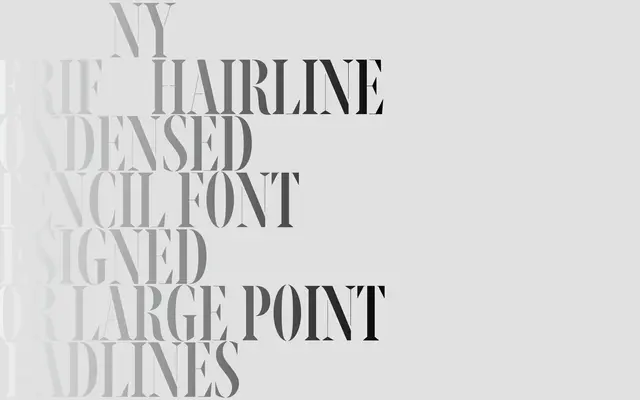
Ny. Serif Condensed Stencil
A condensed stencil serif drawn from Stephenson Blake's Mazarin and the sharp Gothic contrast of the New York Times Magazine logotype.
Part of A2-Type's extensive Ny. family, the Condensed Stencil cut takes its proportional cues from the Garamond-like metal typeface Mazarin, also distributed as Astree by Deberny & Peignot, and sharpens them with contrast borrowed from the blackletter DNA of the New York Times Magazine masthead. The stencil treatment and tight condensed stance make it purpose-built for headline and display use at large sizes. It sits within a broad editorial system that spans text serifs, slab variants, and sans companions.
A condensed stencil cut of a serif family inspired by Mazarin and the New York Times Magazine logotype, placing it firmly in the display category with high contrast and sharp detailing drawn from blackletter influences.